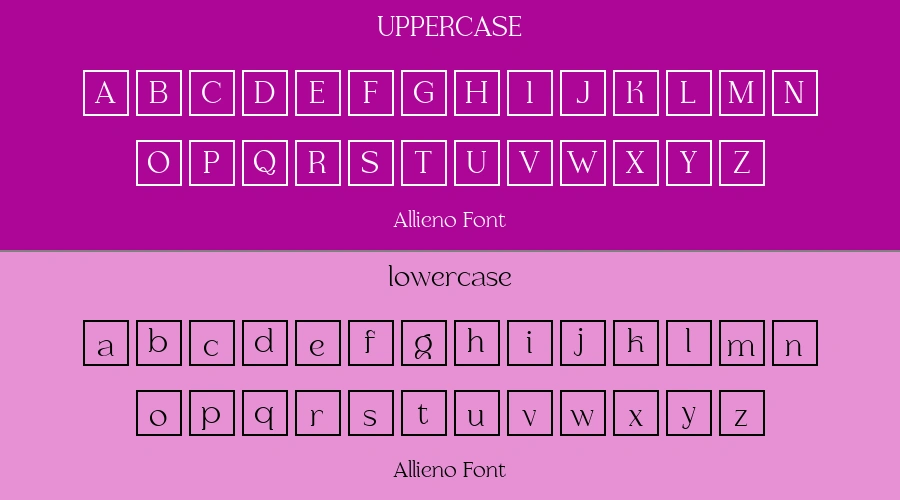
About Allieno Font
Allieno Font stands out for its distinctive combination of harmonious shapes and message hierarchy. Ideal for brand identities, it provides the personality and artistic value that professional projects demand. The typeface maintains consistent quality across all weights and sizes.
Key features include refined monoline strokes and practical mathematical symbols, enhancing typographic expression. In hero imagery applications, Allieno Font demonstrates exceptional screen rendering. The joint detail and scholarly tradition contribute to its distinctive character and professional appeal.